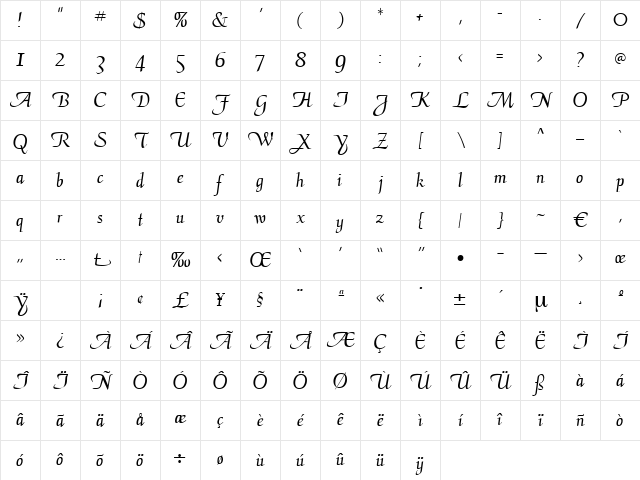
Admiral Regular
Admiral Family
Design Context for Admiral
Admiral is a composed and adaptable typeface that performs quietly and consistently across a wide range of design contexts.